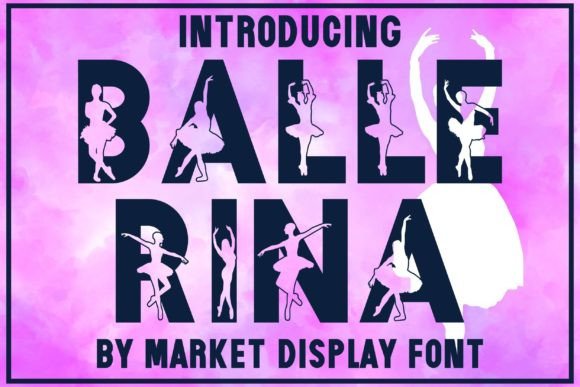
Looking for the perfect font to elevate your design project? Look no further than Ballerina Font - the ultimate choice for anyone looking to add a touch of luxury and elegance to their work!
Crafted by the experts at MDF, Ballerina is a beautiful and romantic decorative typeface that is sure to captivate your audience. With characters that dance along the baseline, Ballerina adds a touch of whimsy and magic to any project.
But Ballerina isn't just pretty - it's also versatile and practical. Whether you're designing a wedding invitation, creating a logo for your business, or simply adding a touch of flair to your website, Ballerina has everything you need to make your project truly stand out.
And with its keyword "Best Fonts For Home Sweet Home," Ballerina is the perfect choice for anyone looking to add a touch of warmth and comfort to their designs. Its elegant curves and luxurious feel make it the perfect choice for any project that needs a little extra love.